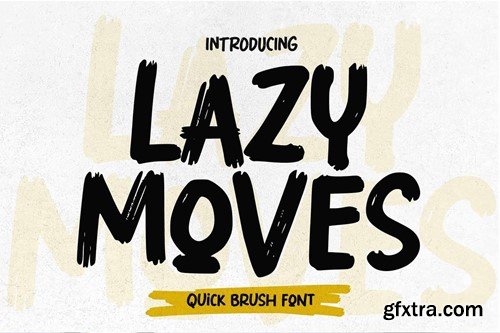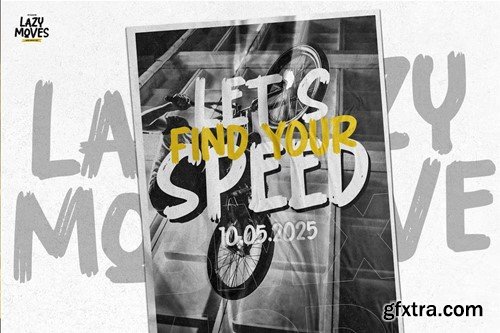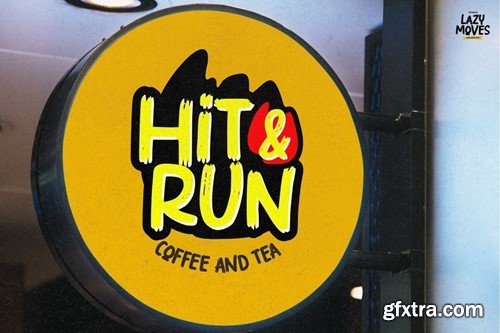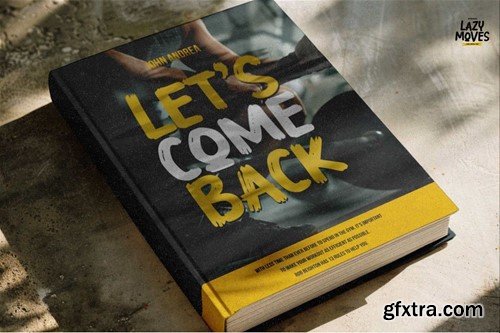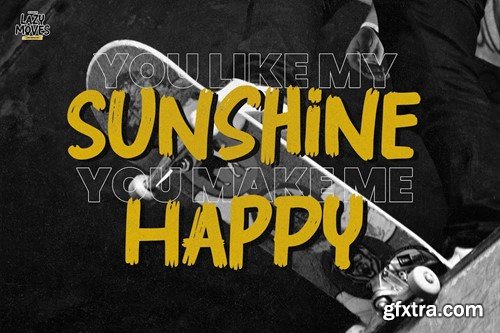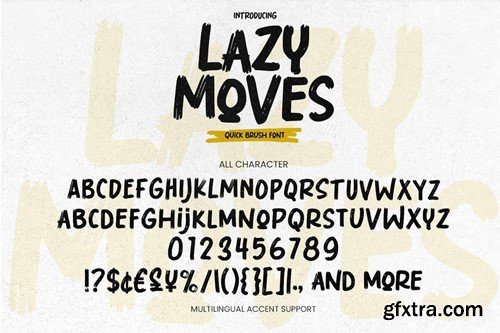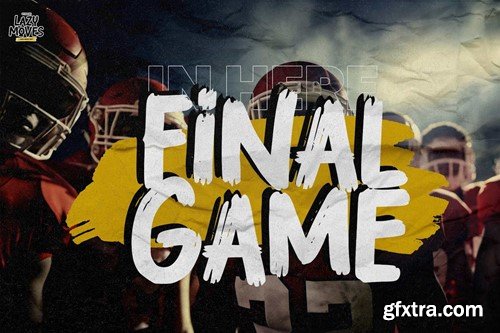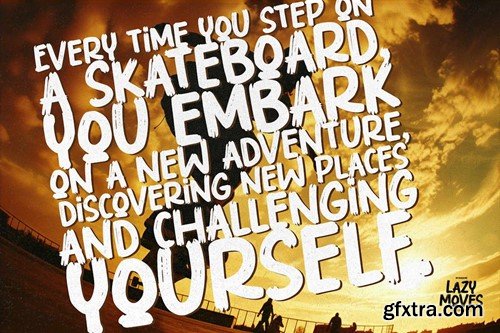
Hello Everyone, introduce our new product Font Lazy Moves Quick Brush Font. This is a Textured Natural Style and classy style with a brush handwriten style and grunge style. What’s Included : Accessible in the Adobe Illustrator, Adobe Photoshop, Adobe InDesign, even work on Microsoft Word. PUA Encoded Characters – Fully accessible without additional design software. Fonts include multilingual support Image used : All photographs/pictures/vector used in the preview are not included, they are intended for illustration purpose only. Cheers! Thank You
This font Lazy Moves is great for your next creative project such as logos, printed quotes, invitations, cards, product packaging, headers, Logotype, Letterhead, Poster, Design this font is great for your creative projects such as watermark on photography, and perfect for logos & branding, invitation,advertisements,product designs, stationery, wedding designs,label ,product packaging, special events or anything that need handwritting taste. That is has charming, authentic and relaxed characteristic more natural look to your text.